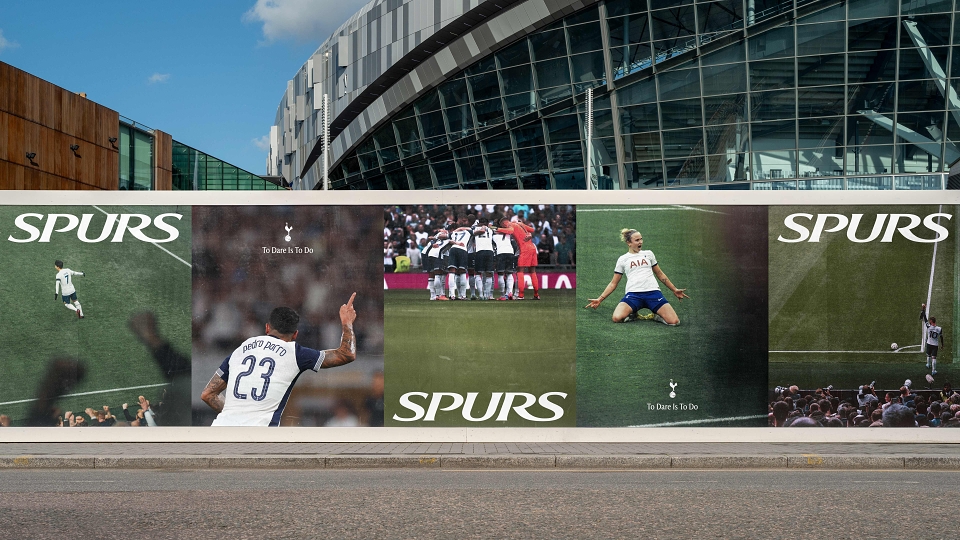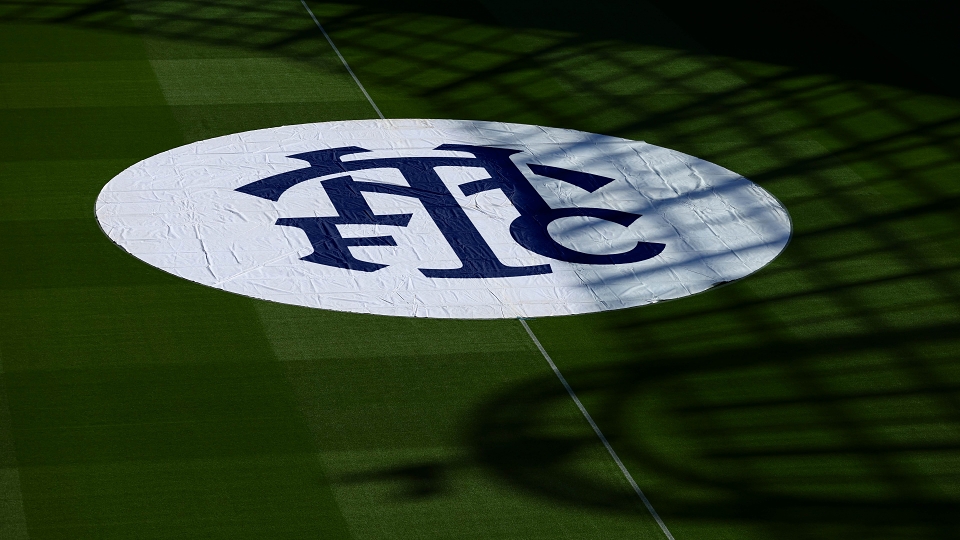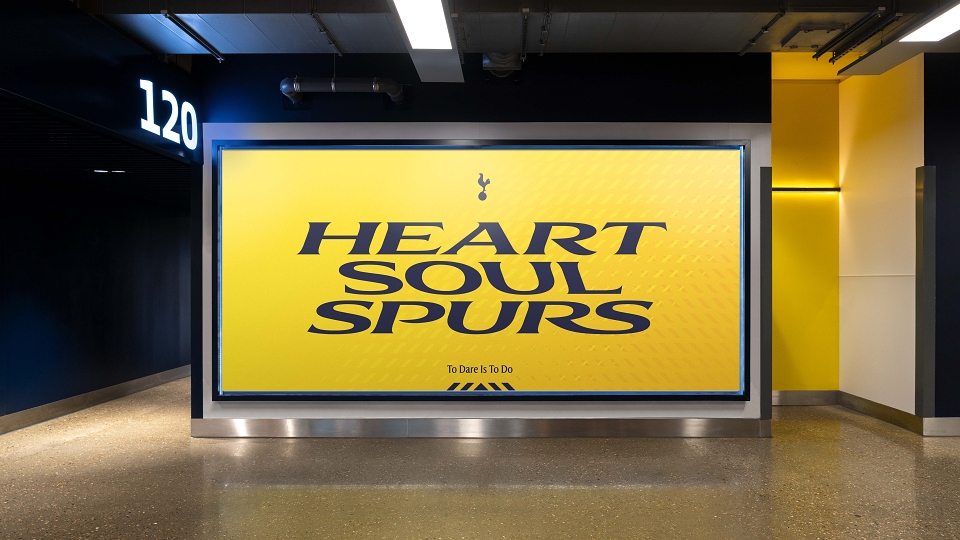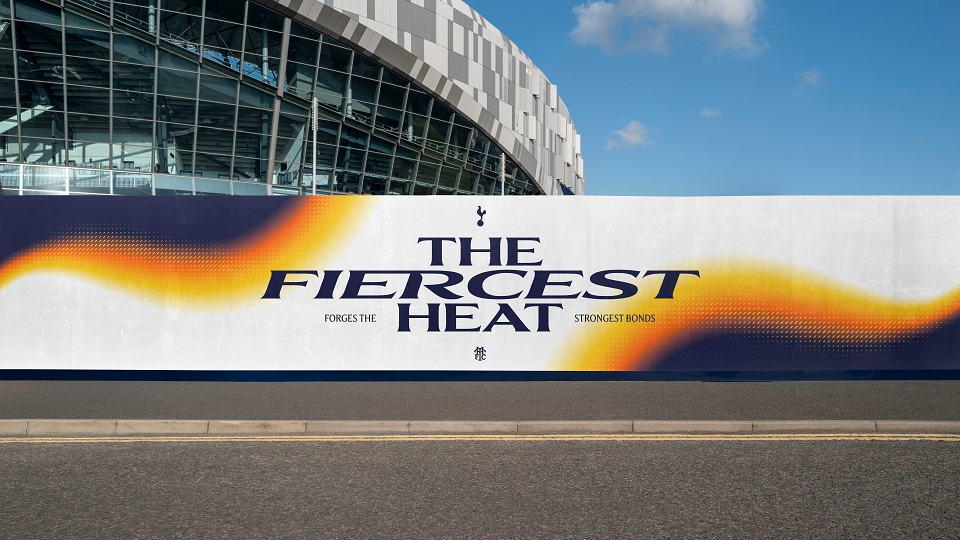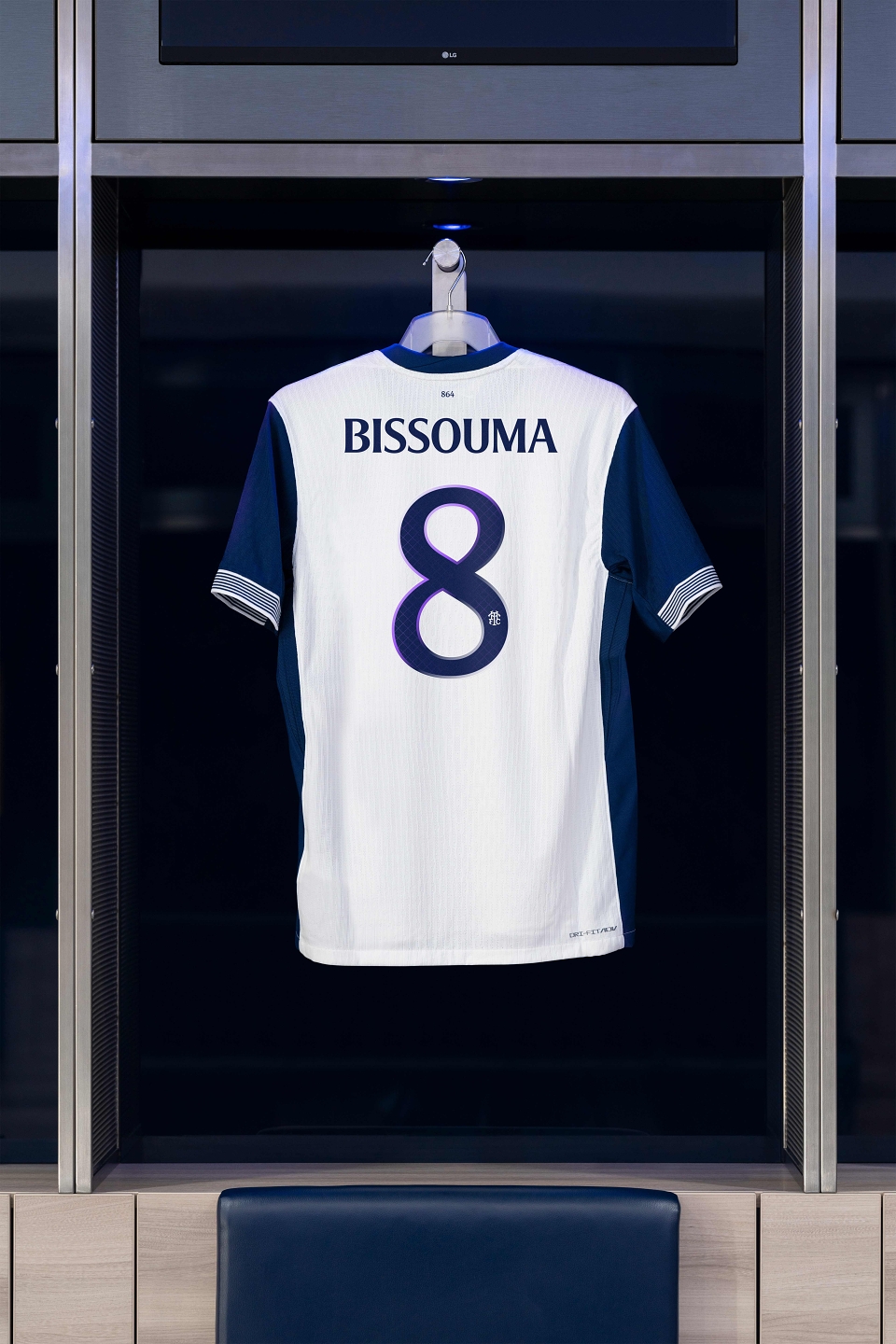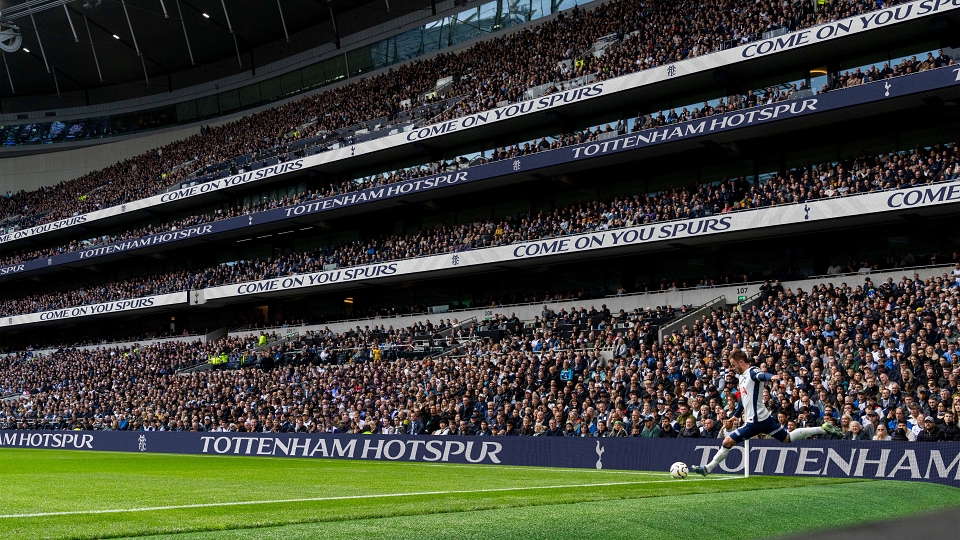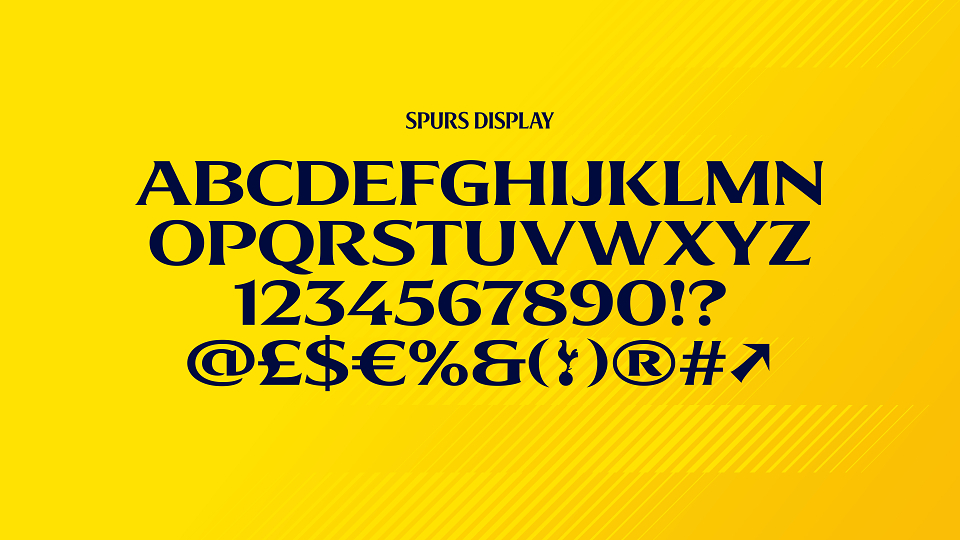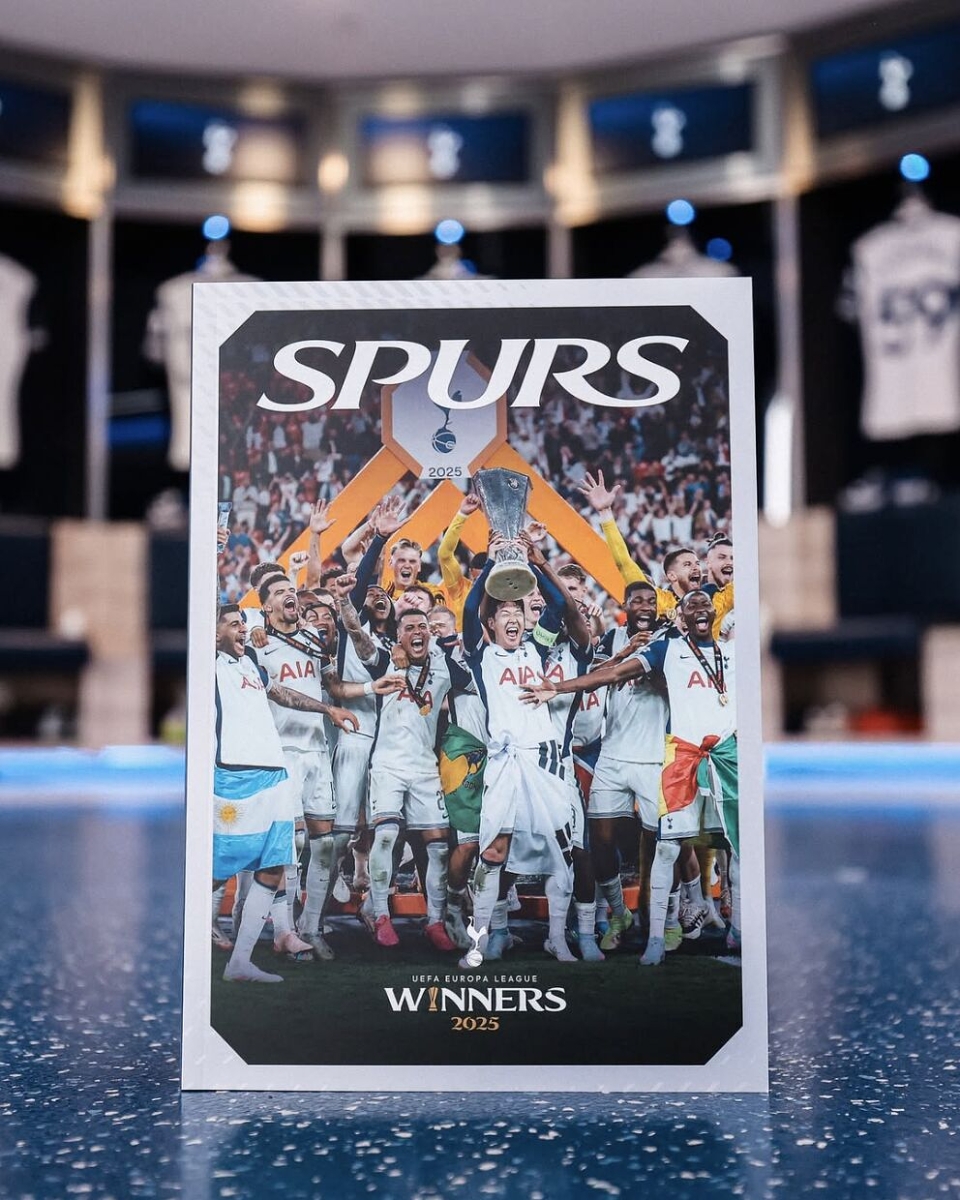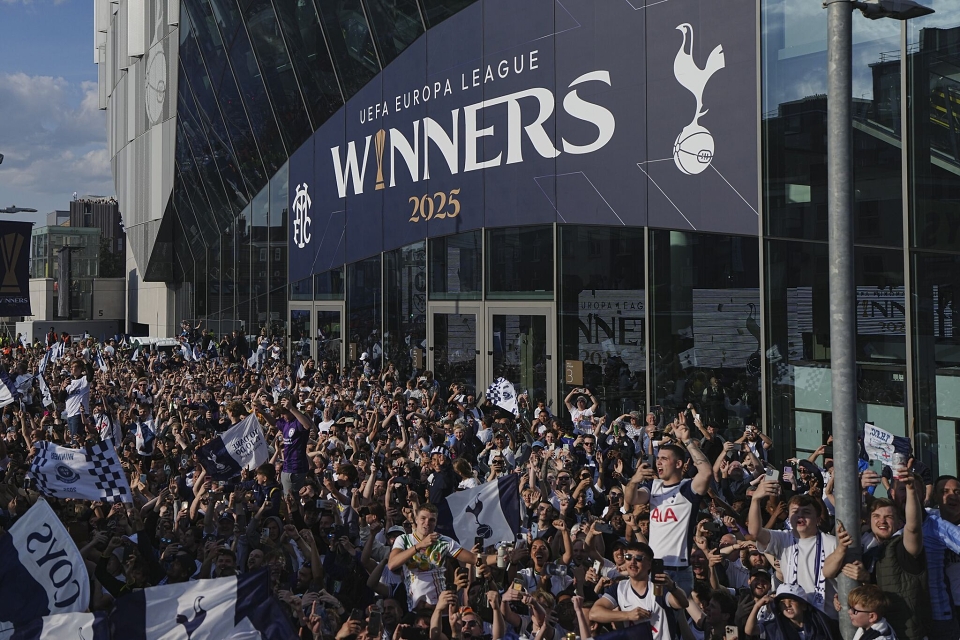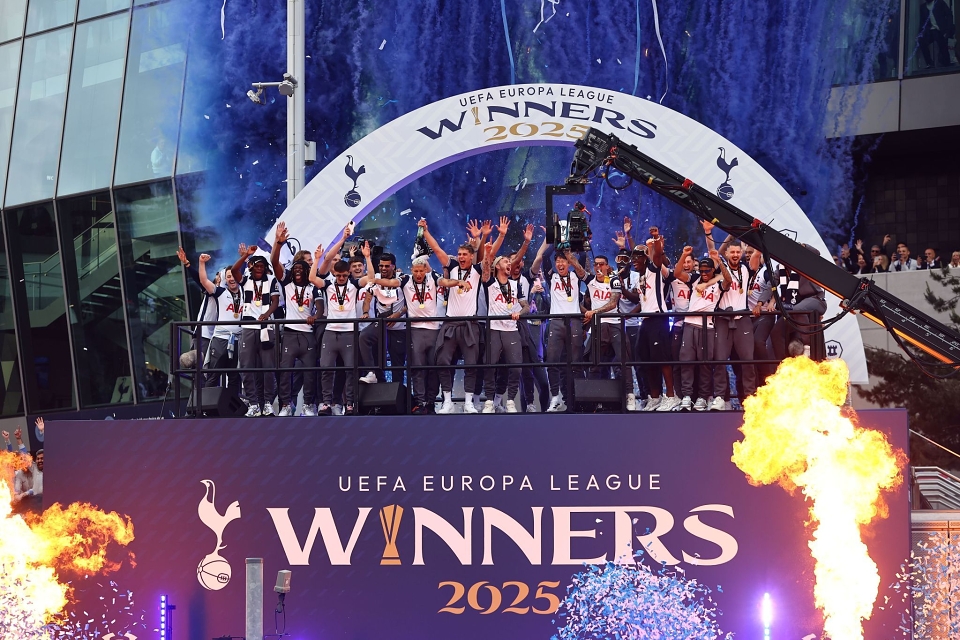
Our iconic typeface, remastered.​
Tottenham Hotspur Football Club last developed their brand identity in 2006 – taking unprecedented steps to simplify their club crest and creating a custom display typeface... 18 years on, as other clubs start to follow in those footsteps, it was time to reimagine our brand once more. To challenge the perception of what a modern football club brand is, we embraced our rich history and unmistakable heritage, to create a richer, and wider, world of type that authentically connects with our brand, brings the heat and energy to support the many demands within the football space and beyond.
• Build on the iconic nature of the existing Spurs display face to deliver something which is authentic and reflects the new brand philosophy - taking inspiration from our heritage to build something unique for our future.
• Modernise the forms, make it sit more coherently with the new suite of IP, and ensure it’s fit-for-purpose in today’s digital landscape.
• Create an identity that places typography at the heart, developing a unique style and distinctive tone of voice to position language as a key component of the brand.
• Deliver a flexible, playful typeface which empowers fun, creativity, and dares, helping to engage with new audiences and younger fans across the globe.
Heavily condensed sans serif type dominates football club communications, so we wanted to place the new supercharged Spurs font at the heart of the brand, and support this with a distinct tone of voice to ensure language and typography can become as uniquely Spurs as the Club’s cockerel and kit colours.
• A specially crafted typeface that retains its iconic and recognisable style with a modern twist which is adaptable, dynamic and has the tonnes of attitude.
• A remastered custom typeface - it has expanded from 76 to nearly 7,000 characters.
• We used the idea of heat from our wider brand philosophy to expand and contract the font, creating a variable headline and lowercase text variant, which is flexes to suit any platform.
• New features and curves within the typeface were inspired by our famous cockerel, expanding our font to include 12 different widths and styles, a completely new lowercase set, together with alternative characters, special glyphs and flowing ligatures.
We created a wider suite of assets that help tell our story of history and heritage.
• A series of wordmarks were created to increase consistency in the way the Club’s name appears within comms, and give more flexibility in the weighting between crest and the Tottenham Hotspur name.
• A “new” secondary piece of IP was developed to support the Club logo – The THFC monogram was an iconic part of the Spurs brand for nearly 60 years – a fan favourite from the 1950s that went on to feature heavily in the Club’s badge. Our intention was to reintroduce a version that would be immediately identifiable by fans, to offer more variety in branded comms, and open up new merchandise opportunities. We modernised the forms and simplified the details in order to be legible when used at small sizes and on low resolution digital screens.
The work launched internally at a special event held at the Stadium in November 2024. Several weeks later the visual and verbal identity were introduced to the public. It immediately connected with fans old and new, and yet again set a benchmark for others to follow. In a world full of United's, City's and Rovers, there is only one Hotspur.
“Probably one of the best type rebrands I have seen of late. Improve the old, give a twist of modern, make it iconic, and allow for flexibility and fun. Not a Spurs fan but I will need all the merch with that monogram, that is for sure.”
“​​Overall, this “remastering” brand projects cleverly side steps any drastic changes that would anger fans and adds plenty of relevant and crowd pleasing assets with the new typeface while being able to infuse the team with a new visual energy that has an electrifying and exciting aura to it.”
Our iconic typeface - inspired by our past, built for our future.